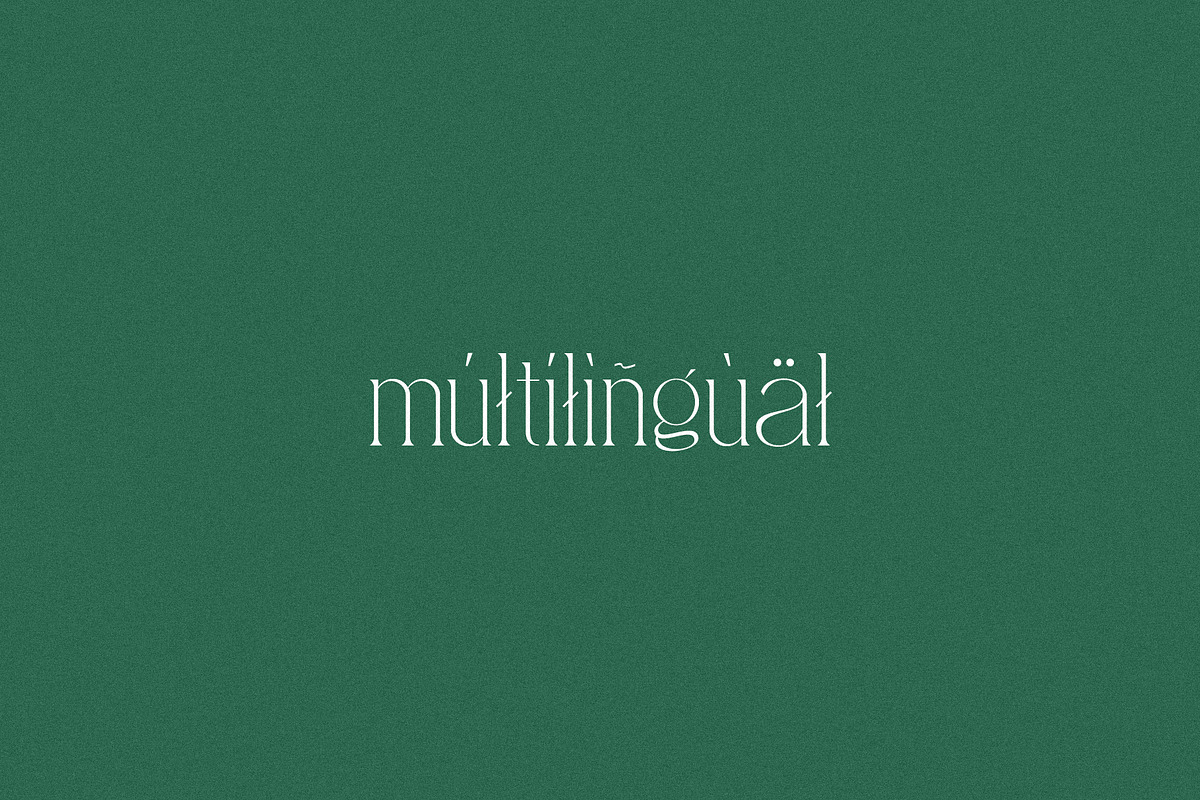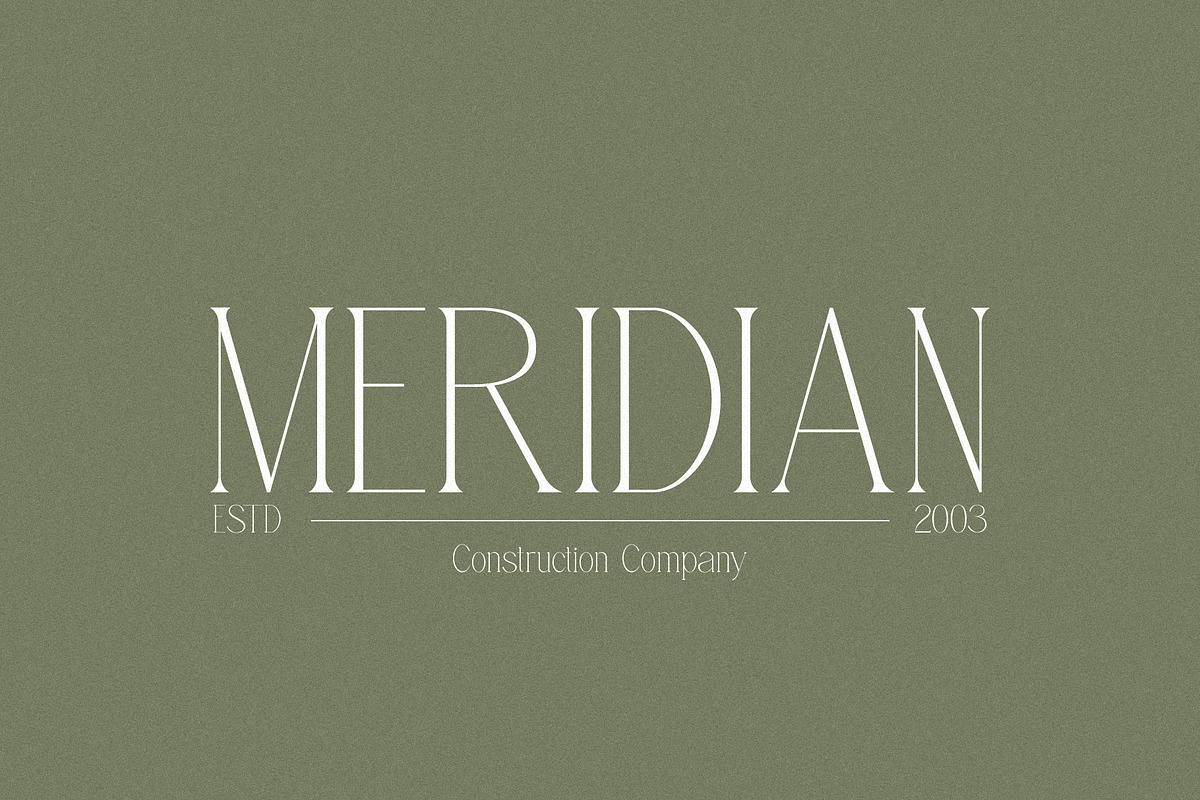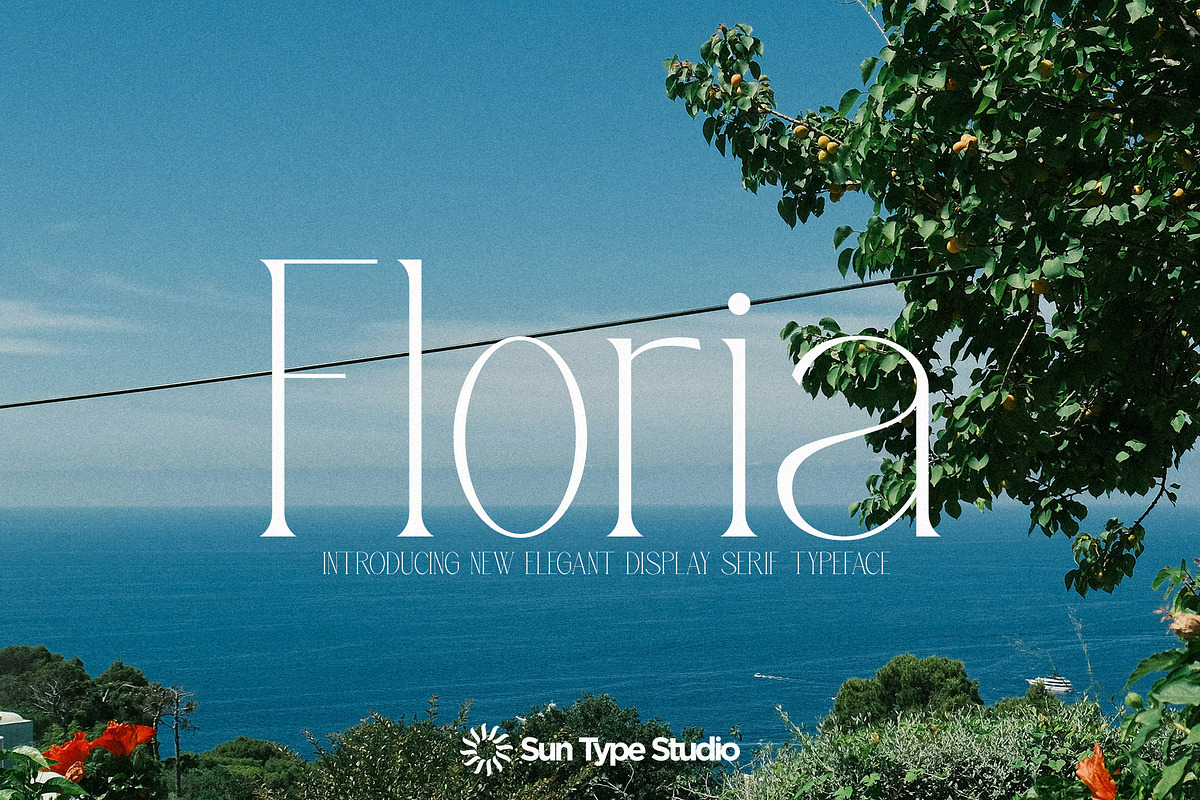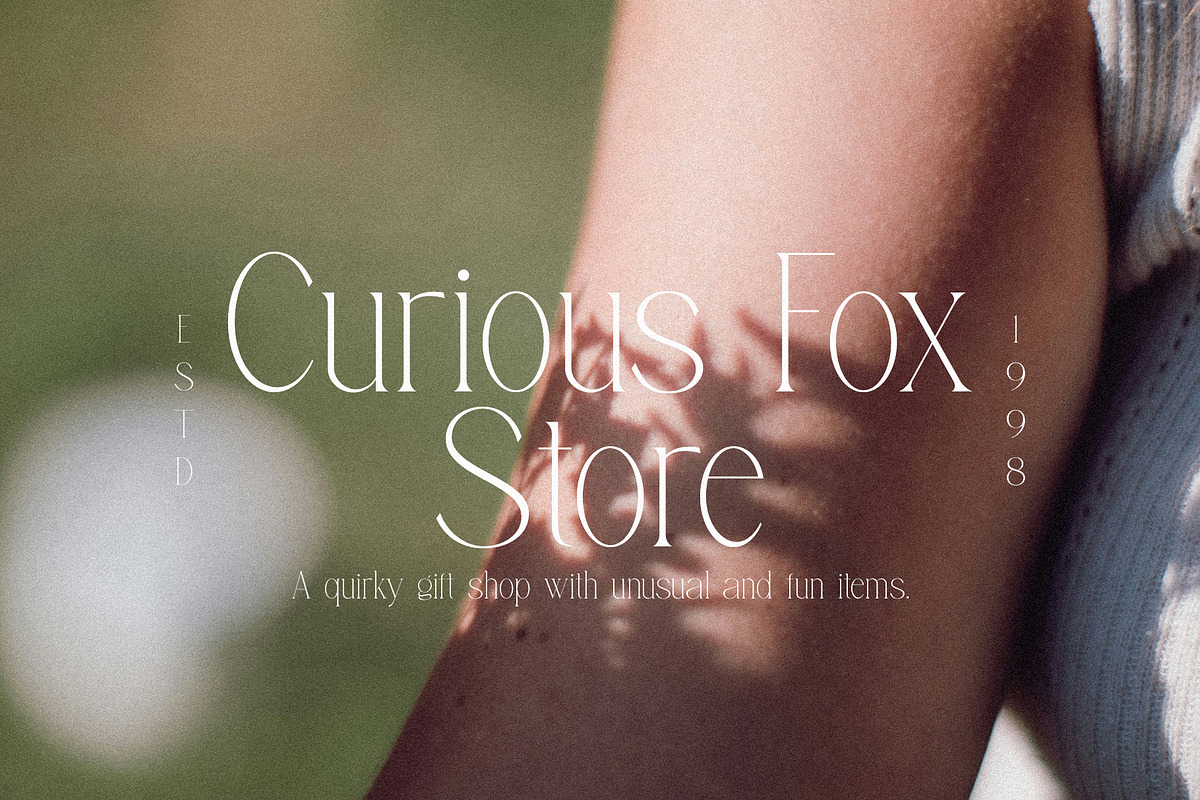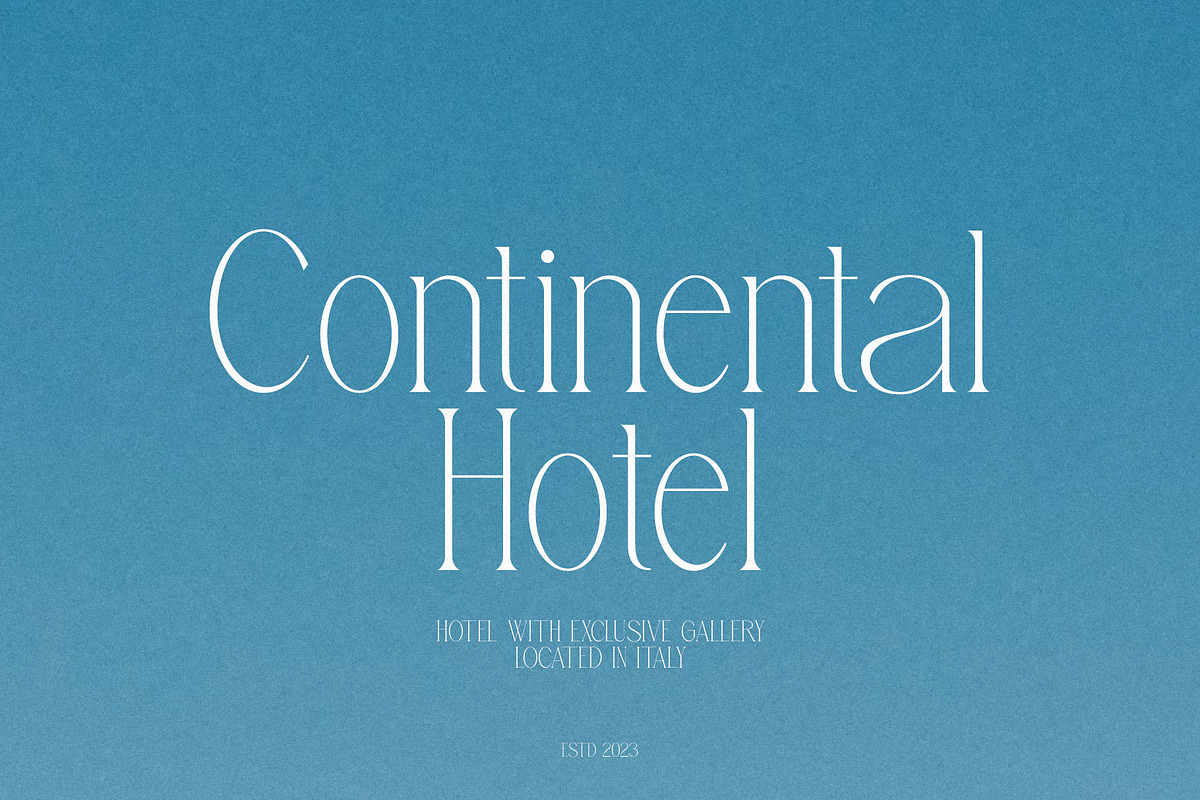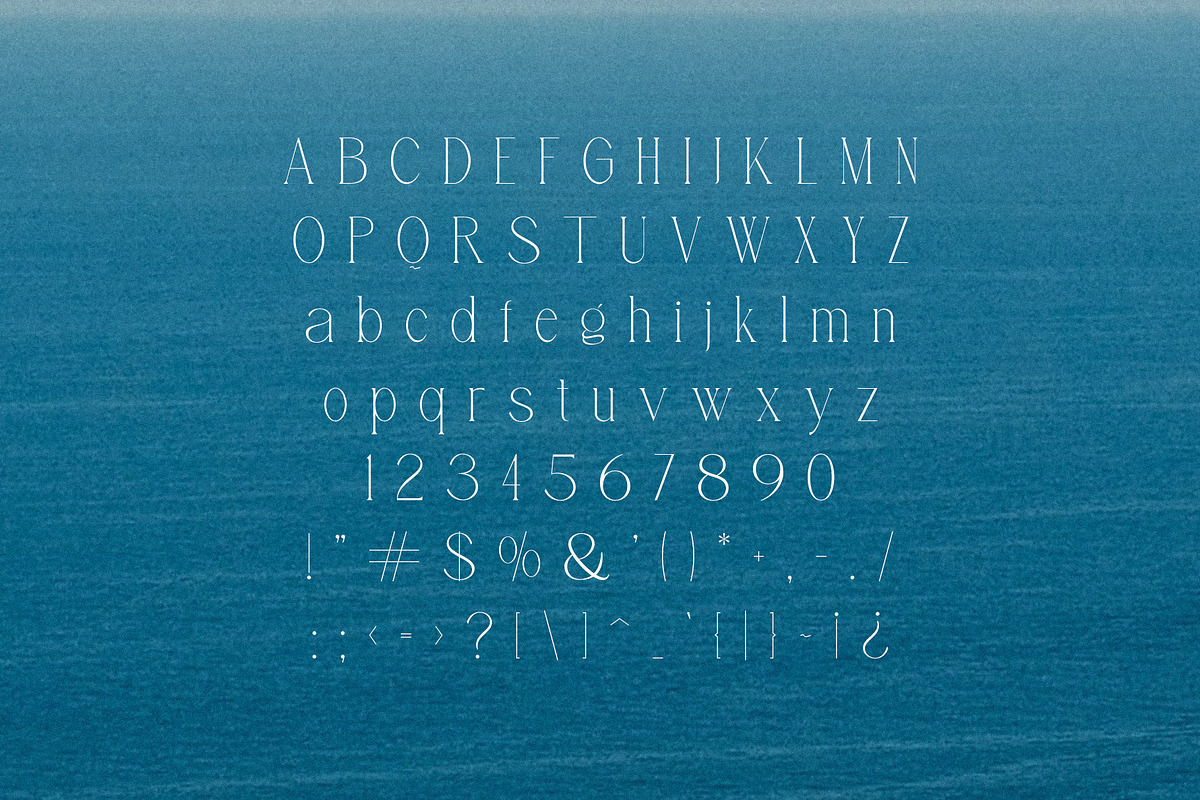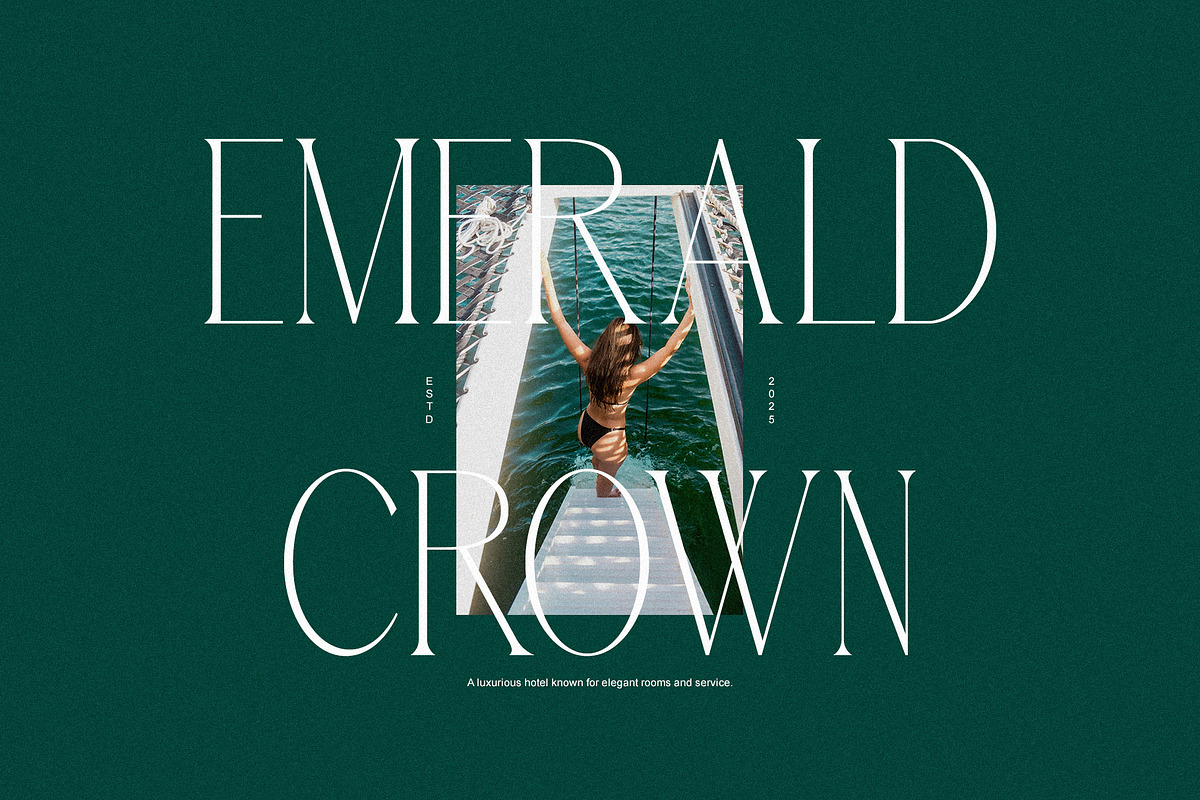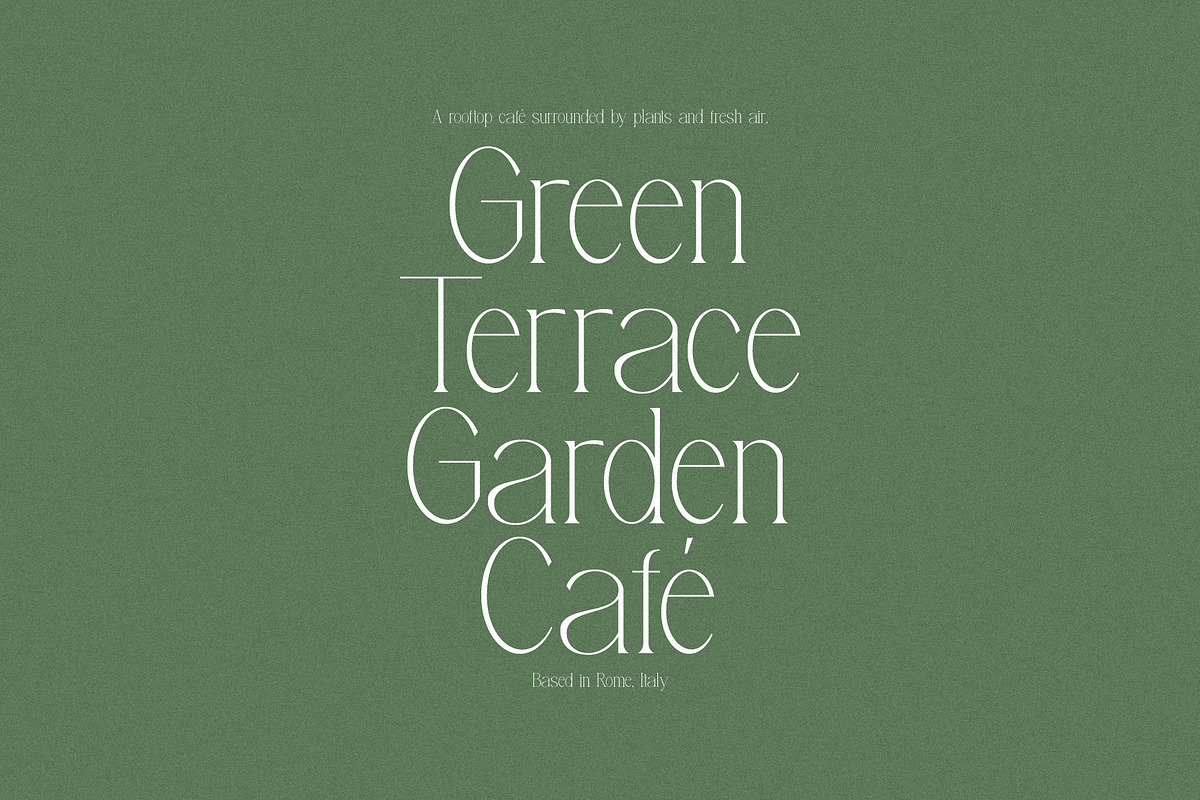
Floria - Elegant Display Serif
Floria – Elegant Display Serif is a graceful, charming typeface that feels both timeless and inviting. Its gentle curves and refined serifs give words a sense of sophistication without feeling stiff or formal. Perfect for wedding invitations, boutique branding, or any project that wants a touch of elegance, Floria makes text feel alive and stylish. It’s a serif that doesn’t just speak—it whispers with elegance.